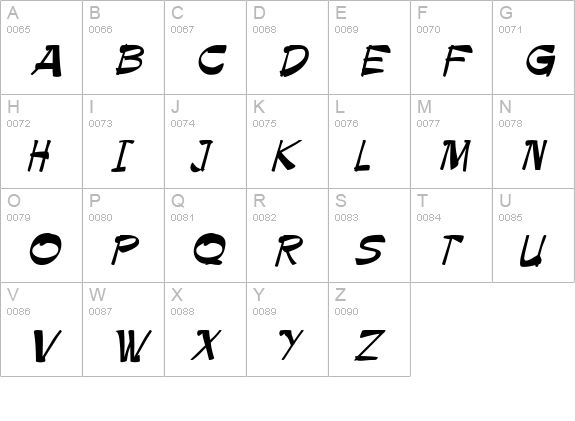
The Paintbrush font is a stunning display typeface that effortlessly captures the artistic essence of hand-painted lettering. Its unique brush strokes and imperfect edges add a touch of authenticity and creativity to any design project. Whether used for headlines, logos, or poster designs, this font brings a dynamic and expressive touch to your work. What makes the Paintbrush font even more appealing is the fact that it is free to download at FontsMarket.com. This means that you can easily access this gorgeous typeface without any cost or hassle. With just a few clicks, you can enhance your designs with the beauty and charm of hand-painted lettering, all without breaking the bank. The versatility of the Paintbrush font allows it to complement various design styles, from vintage and retro to modern and contemporary. Its organic and fluid strokes create a sense of movement and energy, making it perfect for capturing attention and leaving a lasting impression. With a wide range of characters, including uppercase and lowercase letters, numbers, punctuation marks, and special symbols, the Paintbrush font offers endless possibilities for creative exploration. Its seamless connectivity between letters ensures smooth and natural-looking text, adding a professional touch to your designs. Whether you are a professional graphic designer or someone looking to add a touch of creativity to personal projects, the Paintbrush font is a must-have. Its free availability at FontsMarket.com makes it easily accessible to everyone, ensuring that anyone can enjoy the beauty and artistry of this remarkable typeface. So why wait? Download the Paintbrush font today and unleash your creativity with its captivating and expressive letterforms. With this font in your design arsenal, you can effortlessly transform your projects into visual masterpieces that stand out from the crowd.